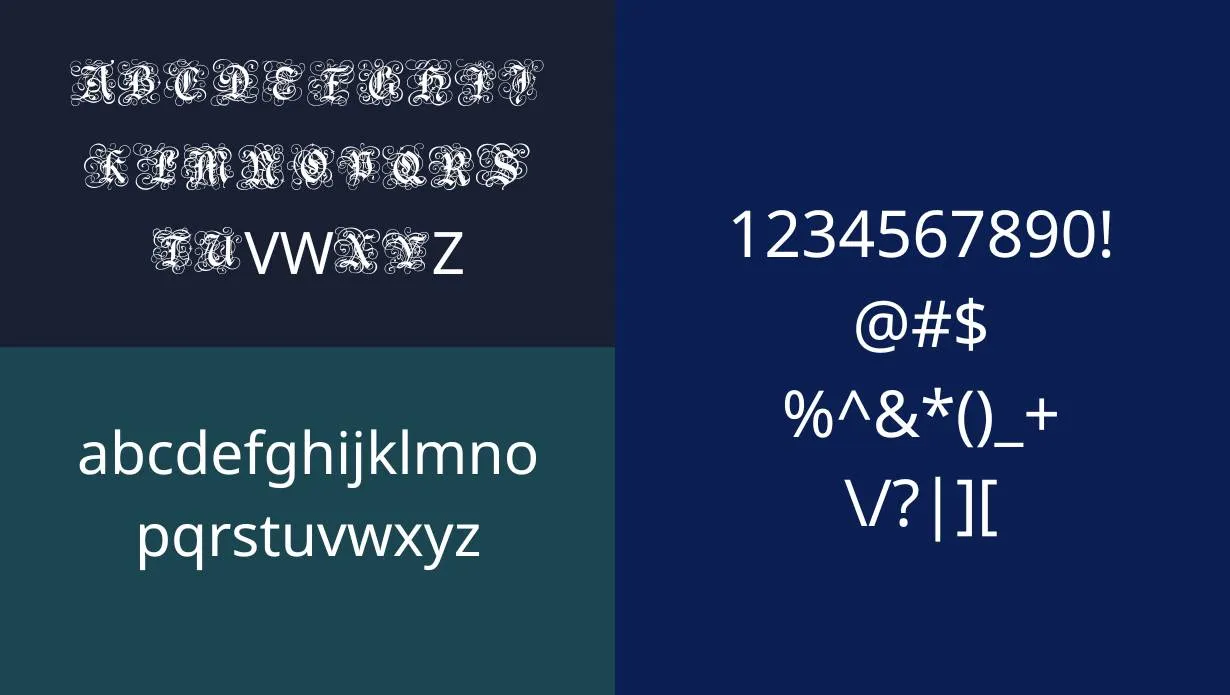
Gothic Flourish Font is a decorative and ornate typeface that evokes a sense of historical elegance. It’s commonly used in vintage-themed designs, retro advertisements, old-world branding, and artistic projects that seek to capture a feeling of nostalgia and classic aesthetics.
| Name | Gothic Flourish Font |
| Designer | Paulo W |